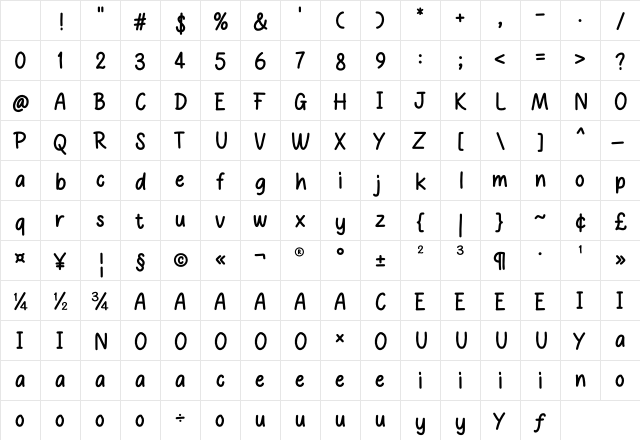
Monny Cartoon has an approachable, lighthearted character - its loose, expressive forms are well-suited to children's content, casual branding, and fun-first design.
Font Pairing: Pairs well with a rounded or humanist sans for body copy, maintaining the friendly tone without relying on Monny Cartoon to carry extended reading.
Pro Tip: Use Monny Cartoon at larger display sizes where its expressive character can land. Pair with a clean, simple sans for body copy to maintain readability.